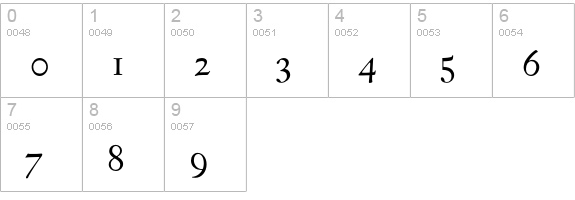
EldoradoText-Light is a refined, elegant variant in the EldoradoText typeface family \xE2\x80\x94 well suited to elegant body text, refined sub-headings, and luxury branding.
EldoradoText-Light is a modern and elegant font that exudes sophistication and style. With its clean lines and sleek design, this font is perfect for a wide range of projects, from branding to editorial design. The light weight of the font adds a touch of subtlety and refinement to any text. What sets EldoradoText-Light apart is that it is not only beautifully crafted, but also completely free to use. This means that you can elevate your designs without any extra cost. You can easily download EldoradoText-Light for free at FontsMarket.com, where you can find many other high-quality fonts to enhance your creative projects. Don't miss out on this amazing opportunity to add a touch of elegance to your work with EldoradoText-Light.